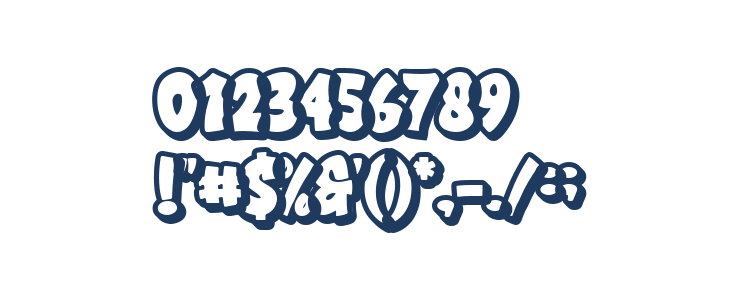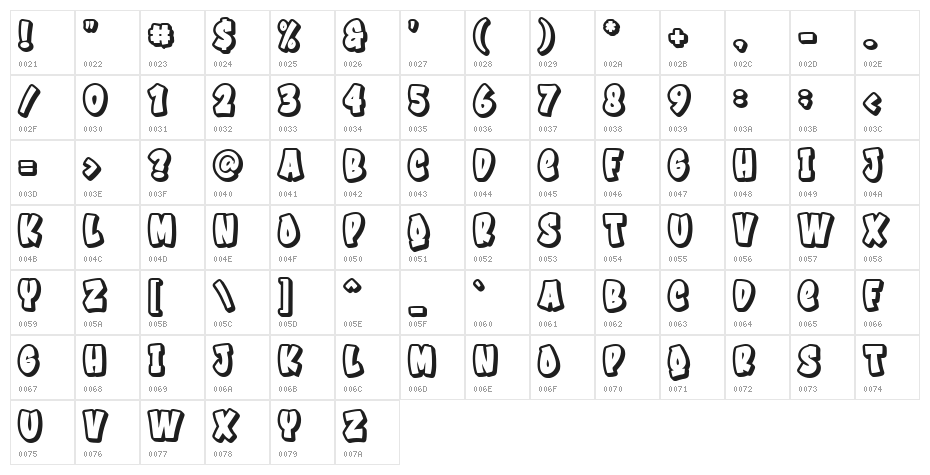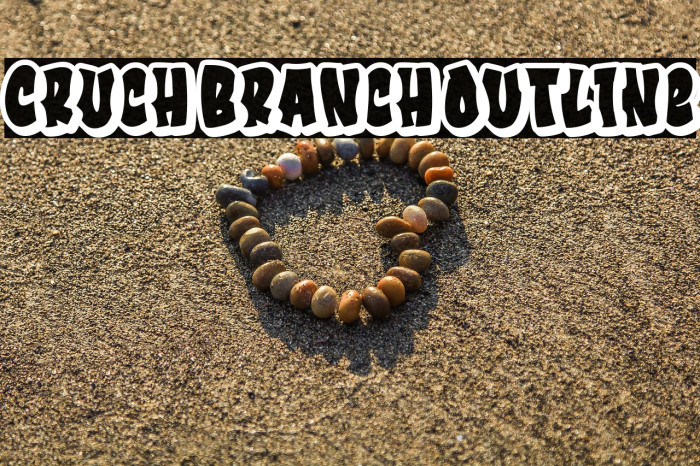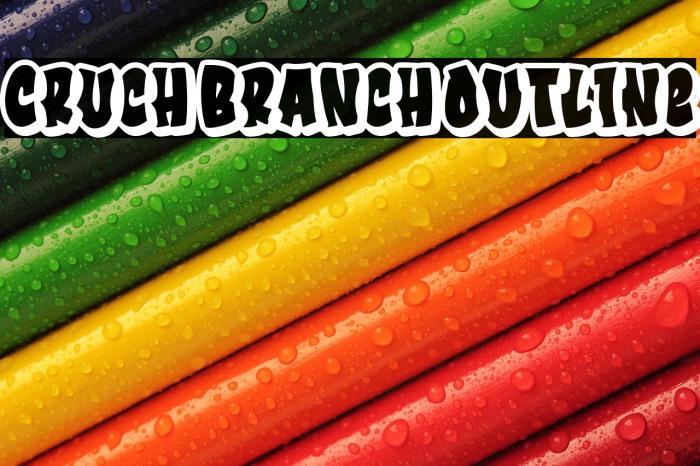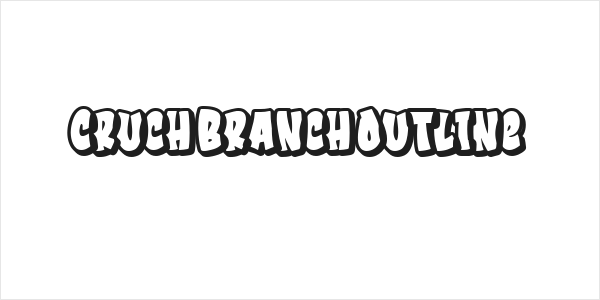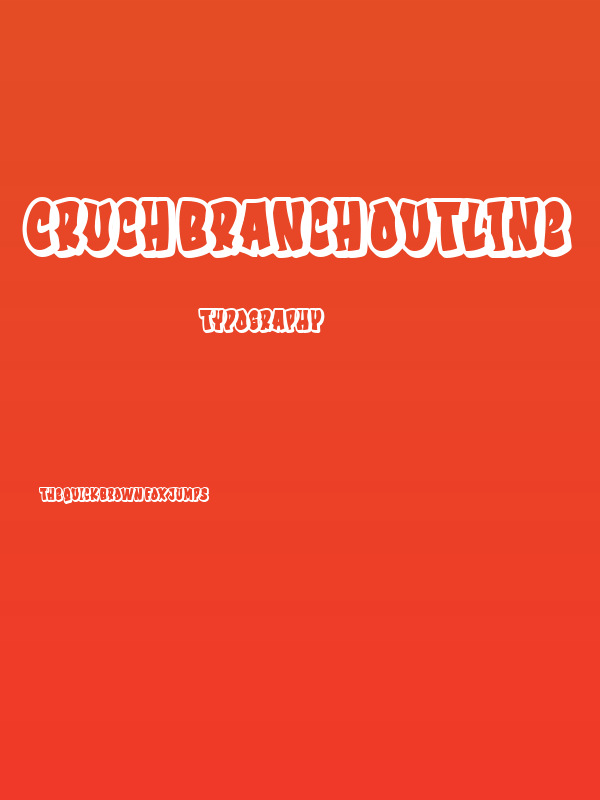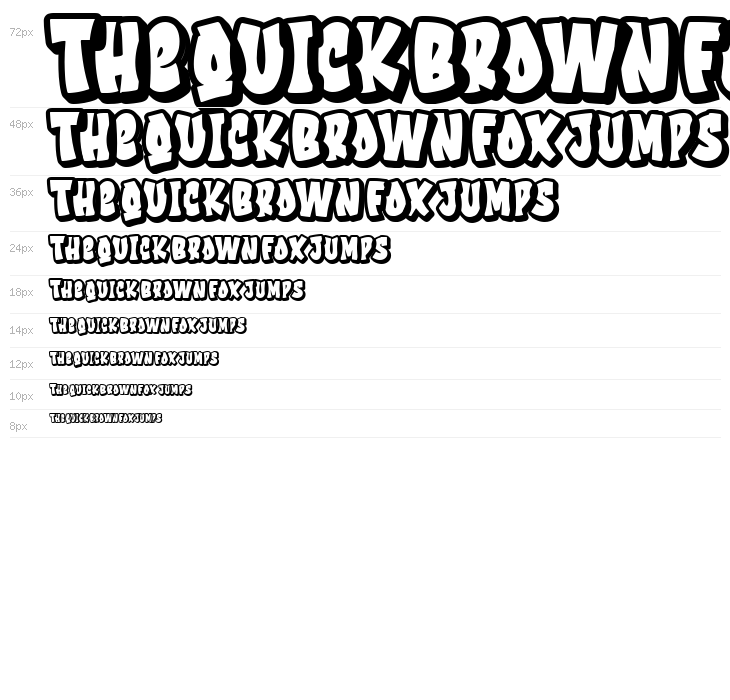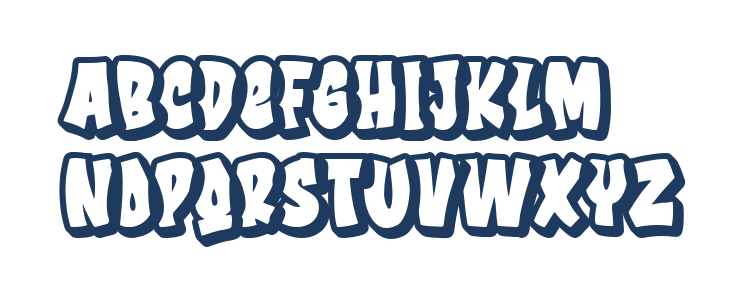
Cruch Branch Outline Font
Cruch Branch Outline Description
This font features a bold, playful style with thick outlines that give it a cartoonish and dynamic appearance. The letters are heavily stylized with exaggerated curves and angles, creating a sense of movement and energy. The uppercase and lowercase characters maintain a consistent design, ensuring readability while adding a whimsical touch. The numbers and special characters follow the same bold, outlined style, making them stand out prominently. This font is perfect for projects that require a fun and eye-catching aesthetic.
Overall StylePlayful, Cartoonish
Proposed ProjectsIdeal for comic books, children's books, posters, and playful branding.